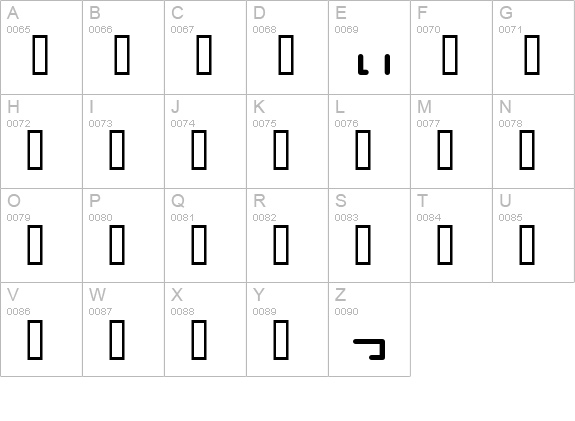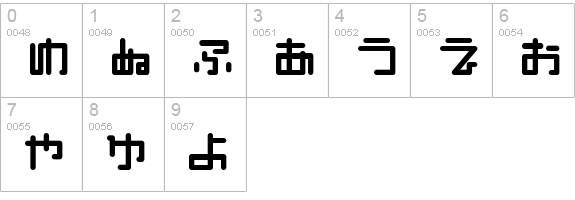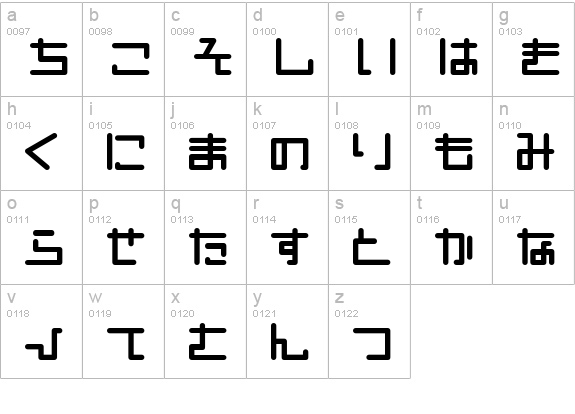
EOPshion font is a versatile and stylish typeface that exudes elegance and sophistication. With its sleek lines and modern design, this font is perfect for a wide range of design projects, from branding to editorial design. EOPshion font is not only visually appealing but also highly legible, making it a great choice for both print and digital applications. One of the best things about EOPshion font is that it is available for free download at FontsMarket.com. This means that you can easily add this beautiful font to your collection without having to spend a penny. Whether you are a designer looking for a new font to add to your toolkit or a business owner in need of a stylish typeface for your branding materials, EOPshion font is sure to impress. Don't miss out on the opportunity to enhance your designs with the stunning EOPshion font, available for free at FontsMarket.com. Download it today and elevate your projects with this elegant and modern typeface.